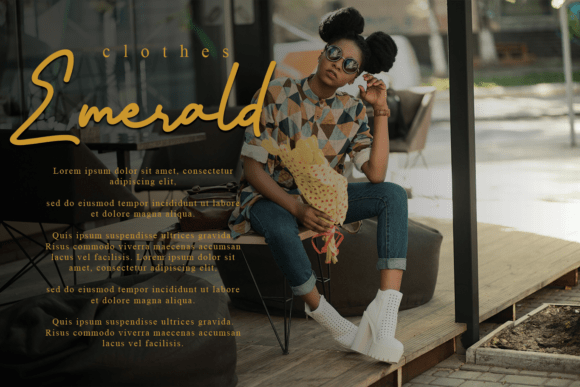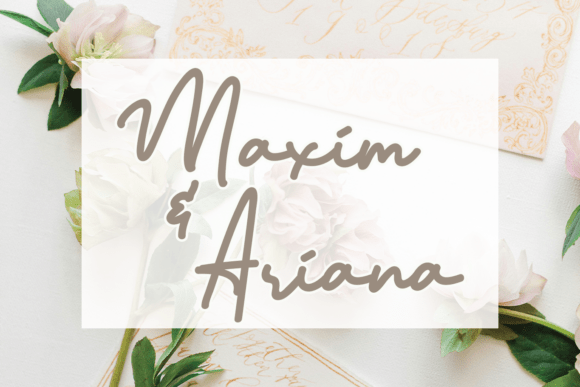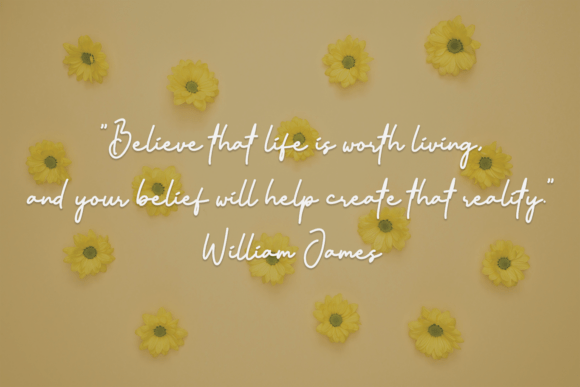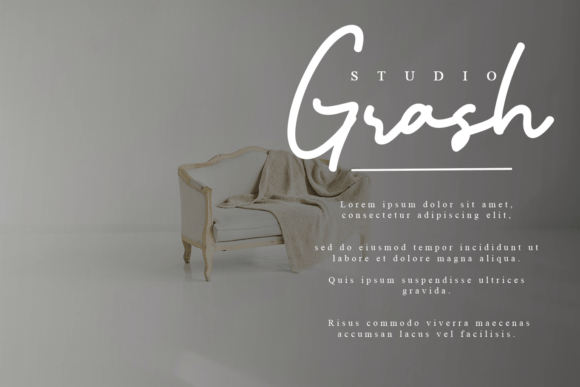
Introducing Dominant Font: Elevate Your Designs with Elegance and Sophistication
In the world of typography, a font can make all the difference in the aesthetic and tone of your design. If you’re looking for a typeface that exudes elegance, sophistication, and a touch of whimsy, look no further than the Dominant Font. This beautiful, handwritten font is perfect for designers and crafters seeking to add a touch of refinement and luxury to their projects.
The Characteristics of Dominant Font
Dominant Font is a flowing and graceful handwritten font that boasts a chic style, making it an ideal choice for a variety of design applications. Its elegant strokes, subtle flair, and refined letterforms evoke a sense of sophistication and poise. Whether you’re creating wedding invitations, stationery, social media posts, or any other visual material, Dominant Font is sure to make a lasting impression.
What Makes Dominant Font So Versatile?
One of the standout features of Dominant Font is its versatility. Its beautiful, cursive script can be used in a wide range of design projects, from:
- Wedding Invitations: Create stunning wedding invites that set the tone for a luxurious and unforgettable celebration.
- Stationery: Elevate your stationery designs with a touch of elegance, perfect for personal correspondence or business communications.
- Social Media Posts: Add a dash of sophistication to your social media content, making it perfect for fashion, beauty, or lifestyle brands.
- Branding and Packaging: Use Dominant Font to create eye-catching packaging, labels, or brand identity materials that exude refinement and luxury.
Why Choose Dominant Font?
With so many fonts available, why choose Dominant Font for your next design project? Here are just a few compelling reasons:
- Unique and Eye-Catching: Dominant Font’s distinctive, handwritten style ensures your designs will stand out from the crowd.
- Easy to Read: Despite its elegant, cursive script, Dominant Font remains highly legible, making it perfect for body text or headlines.
- Highly Versatile: Use Dominant Font across various design projects, from digital to print, and watch your creativity shine.
Tips for Using Dominant Font Effectively
To get the most out of Dominant Font, consider the following tips:
- Pair with Contrasting Fonts: Combine Dominant Font with a clean, sans-serif font to create visual interest and hierarchy.
- Experiment with Colors: Try pairing Dominant Font with a range of colors to find the perfect match for your brand or design.
- Play with Size and Style: Use varying font sizes and styles to add emphasis and create a visually appealing design.
Dominant Font is a beautiful, handwritten typeface that offers a unique blend of elegance, sophistication, and playfulness. Its versatility, legibility, and eye-catching style make it an excellent choice for designers and crafters seeking to elevate their designs. Whether you’re creating wedding invitations, stationery, social media posts, or any other visual material, Dominant Font is sure to make a lasting impression. So why wait? Fall in love with Dominant Font and bring a touch of refinement and luxury to your next design project.